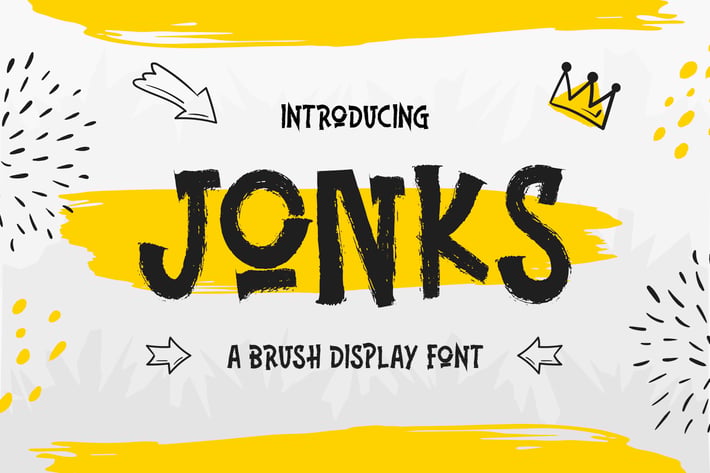
Jonks – A Brush Display Font
Jonks is a daring, rough textured and brush display font. It has powerful yet cheerful feel. No matter the topic, this font will be an incredibly asset to your fonts’ library, as it has the potential to elevate any creation.